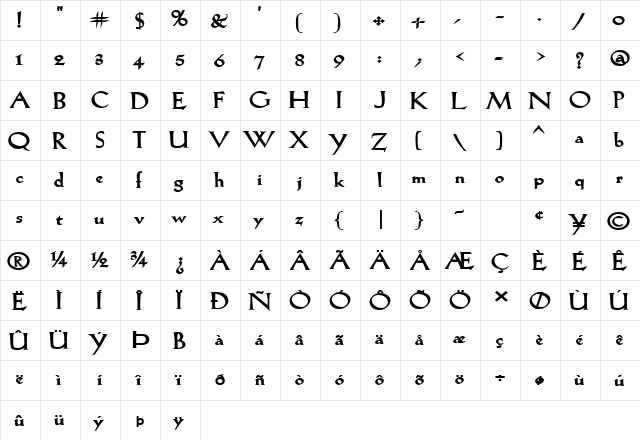
Salem-Extended Bold
Design Context for Salem-Extended Typeface
Salem-Extended takes a measured approach to typography — its balanced proportions and neutral character make it a reliable workhorse for both digital and print work. The heavy weight commands attention and anchors typographic hierarchies.